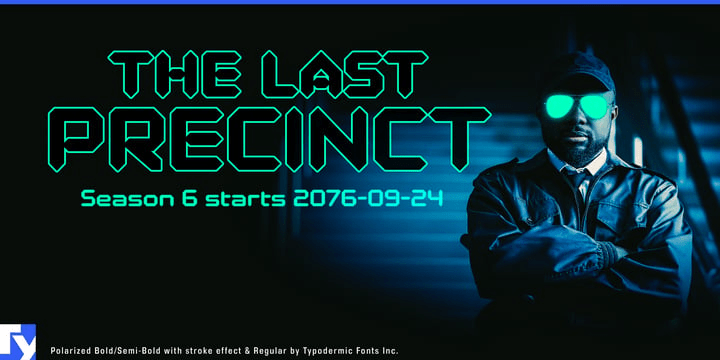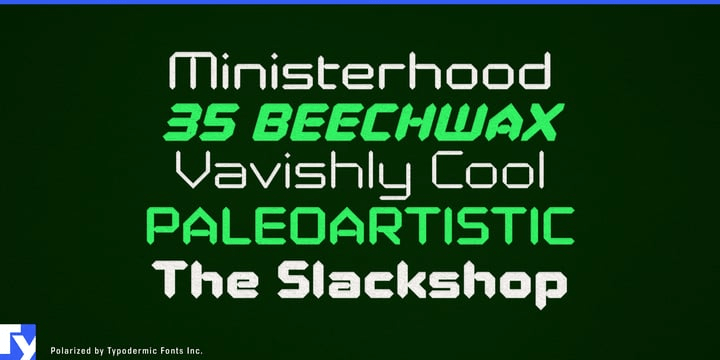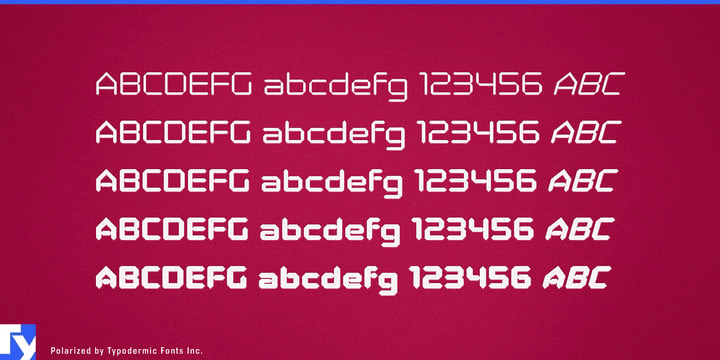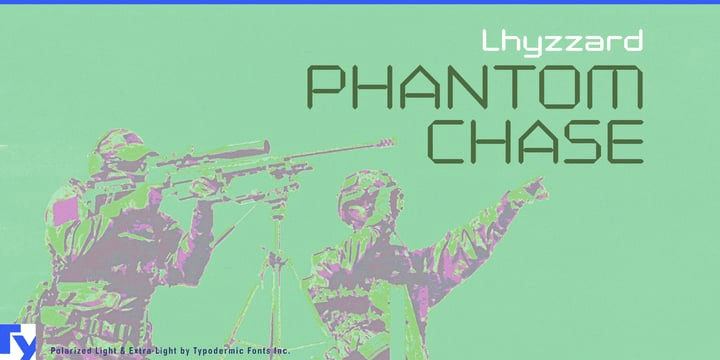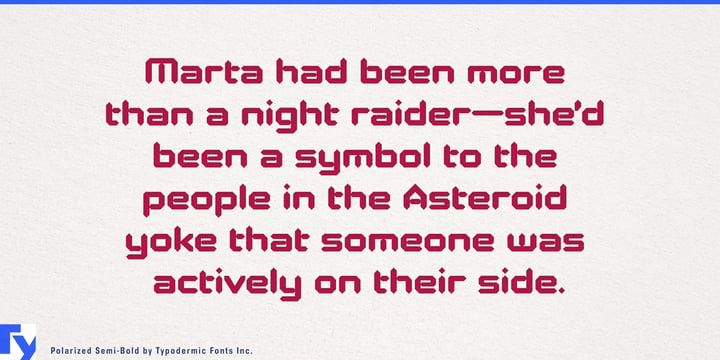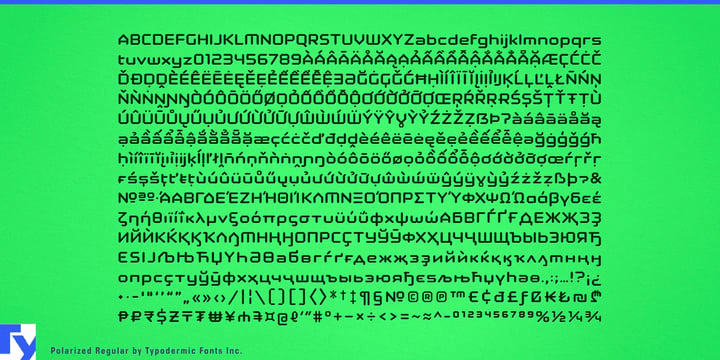
Polarized
About Polarized
Polarized isn’t just a typeface—it’s a digital love letter to the LCD displays that once united us all. Born from a deep-seated passion for those iconic seven-segment digits, this font bridges the gap between nostalgia and innovation,…